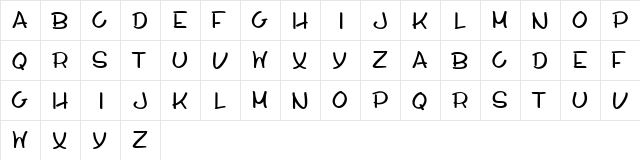
Whiteboard Modern Regular
| Foundry | Jay Hilgert |
| Designer | Jay Hilgert |
Design Context for Whiteboard Modern Typeface
Whiteboard Modern takes a measured approach to typography — its balanced proportions and neutral character make it a reliable workhorse for both digital and print work.